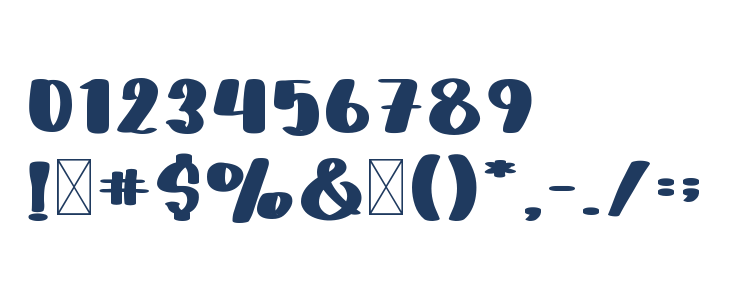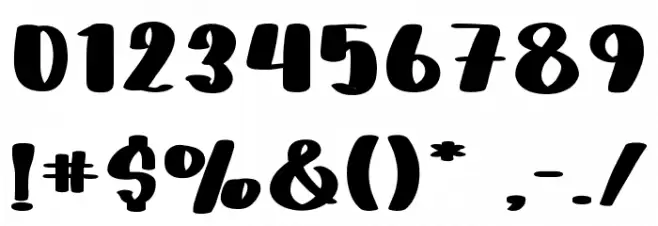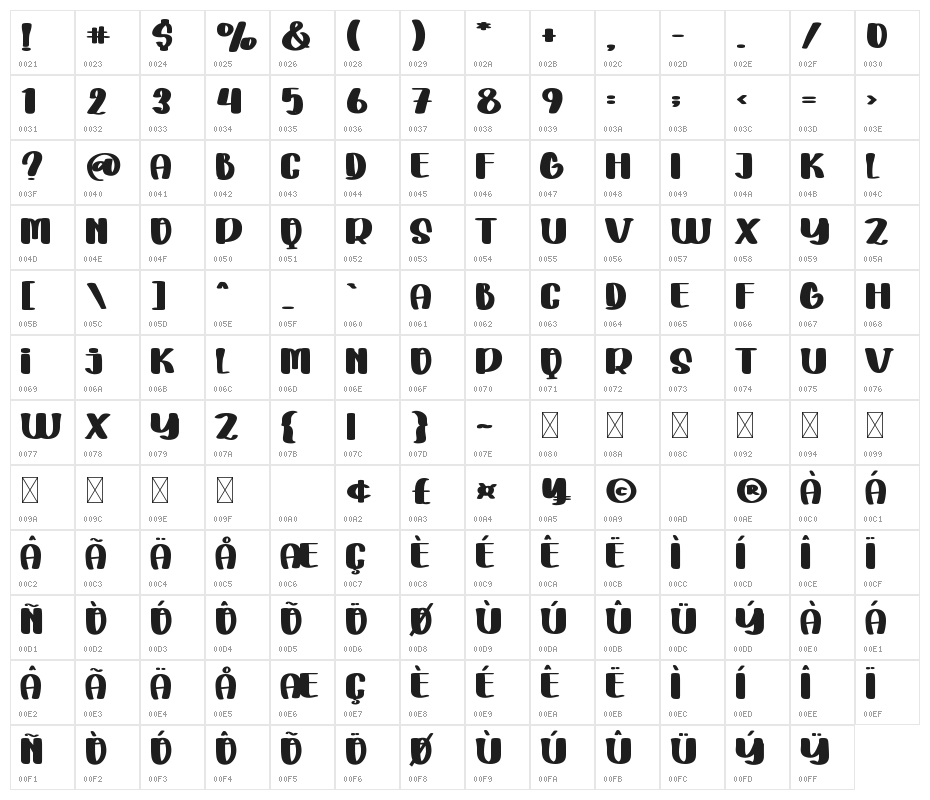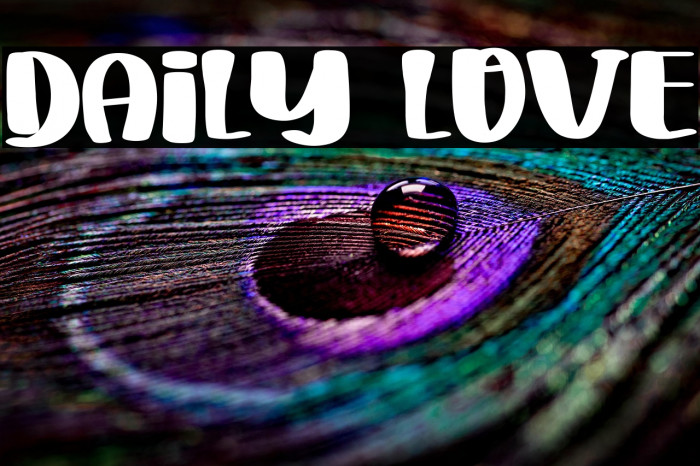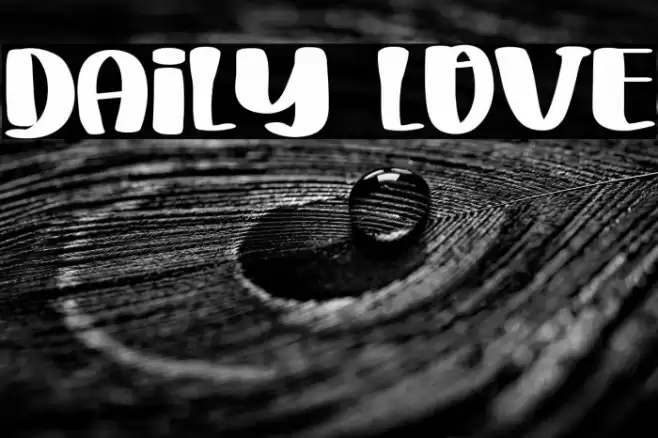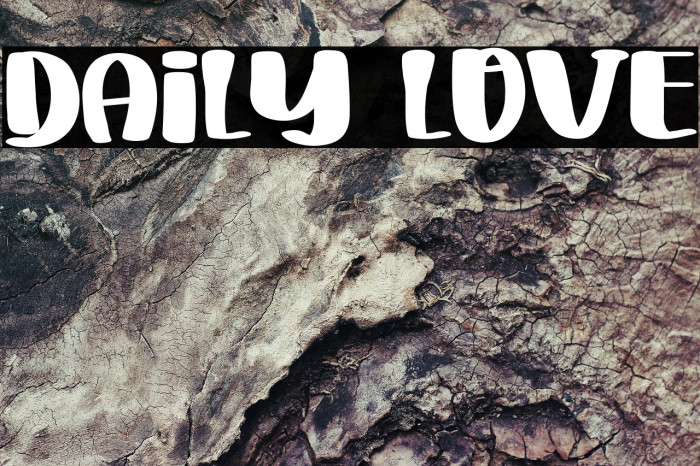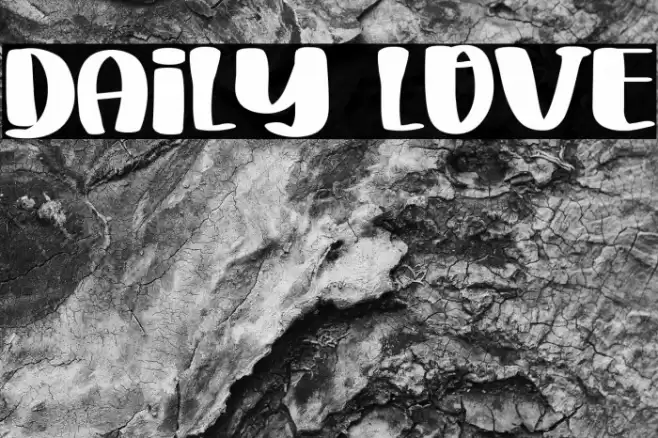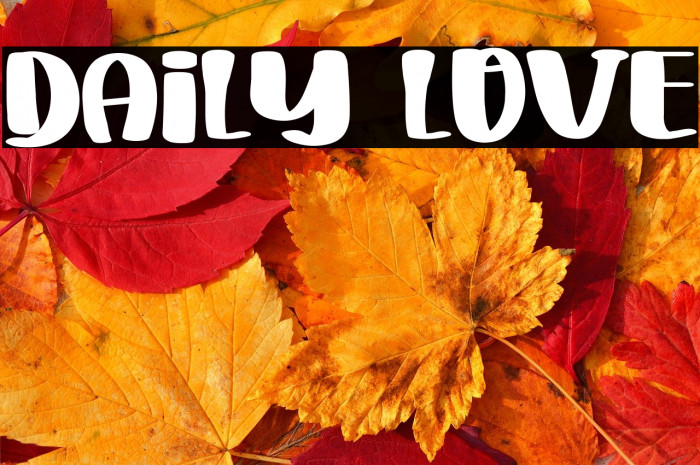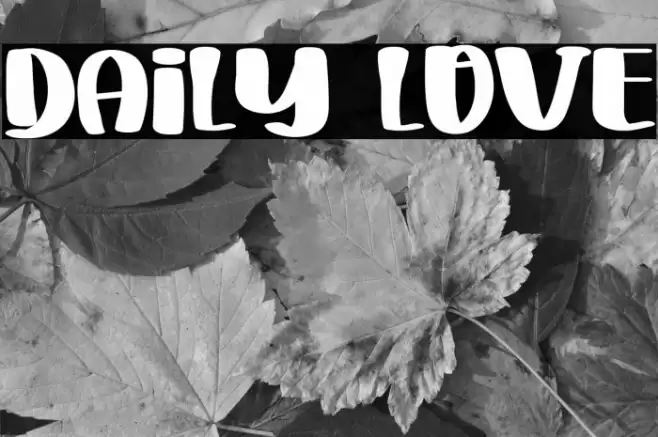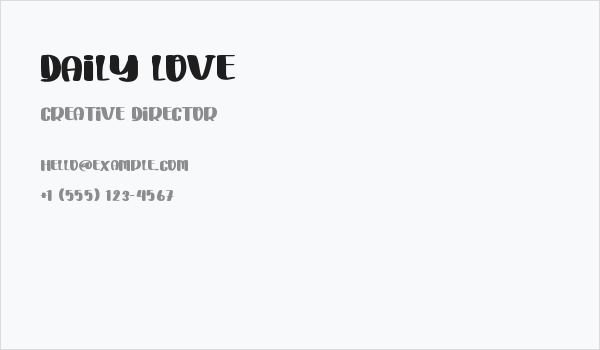
Daily Love Font
Daily Love Description
This font features a bold and playful style with thick, rounded strokes that give it a friendly and approachable appearance. The letters are characterized by their uniform width and smooth curves, creating a cohesive and harmonious look. The uppercase and lowercase letters maintain a consistent design, enhancing readability while adding a touch of whimsy. The numerals and special characters are equally bold, ensuring they stand out in any design. This font's unique style makes it suitable for projects that require a fun and engaging visual impact.
| Proposed Projects | Ideal for children's books, playful branding, posters, and social media graphics. |